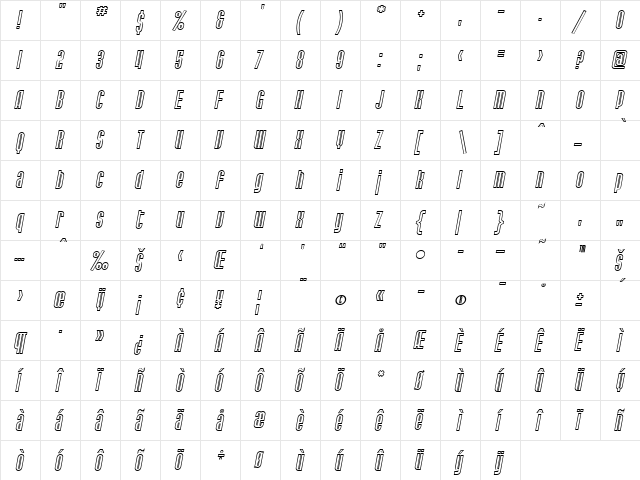
SF Port McKenzie Outline Italic
Design Context for SF Port McKenzie Outline Typeface
SF Port McKenzie Outline is built around its visual character rather than neutral utility — its distinctive forms are designed to make an impression at display sizes. The dynamic lean of this cut emphasises speed and emphasis in any layout.
Font Pairing: Pair with a clean neutral sans-serif for body copy to let SF Port McKenzie Outline's character lead without overwhelming the composition.
Pro Tip: Treat SF Port McKenzie Outline as the centrepiece of your typographic hierarchy. One strong heading set in a decorative face can carry an entire layout.